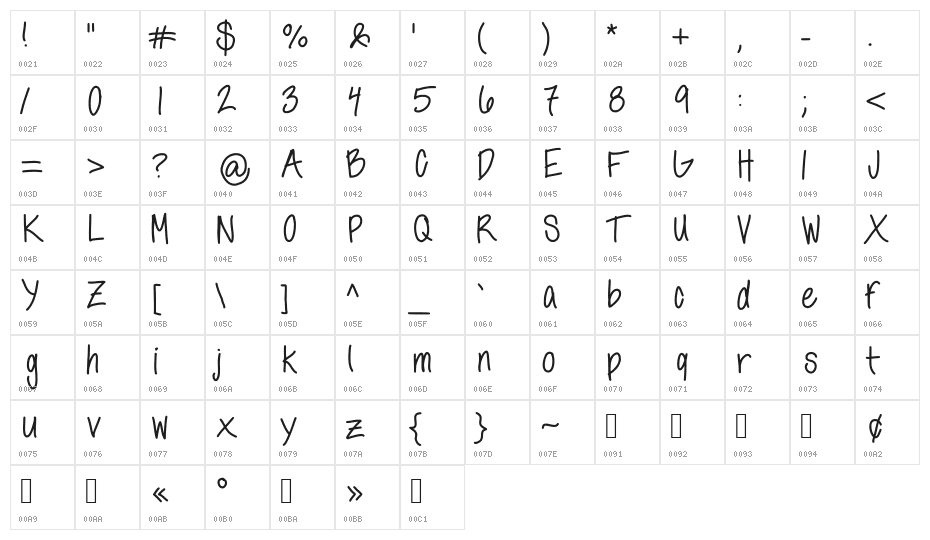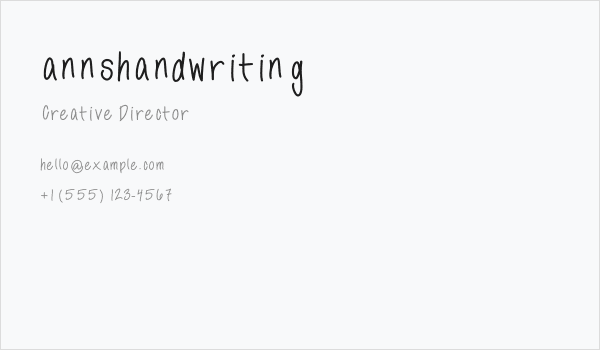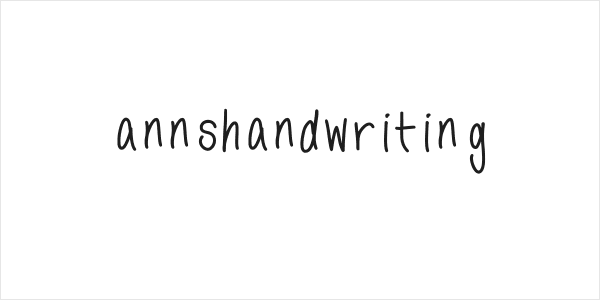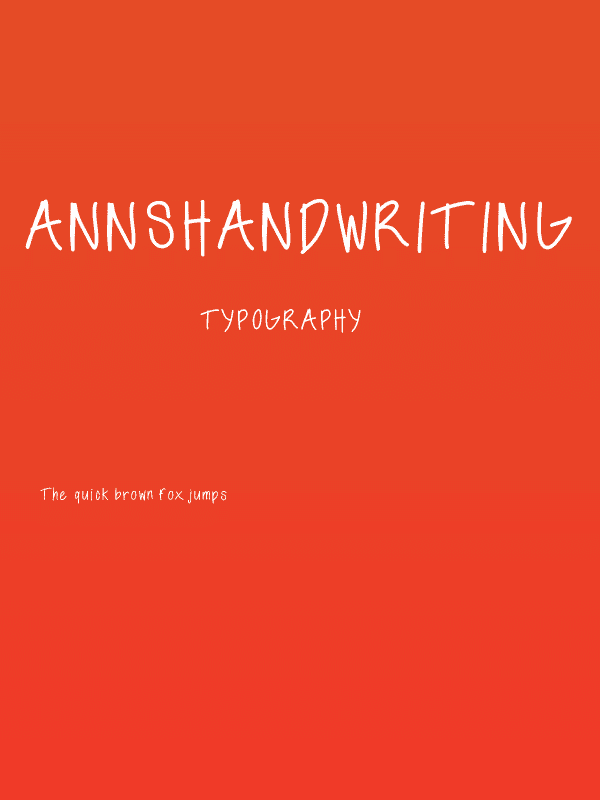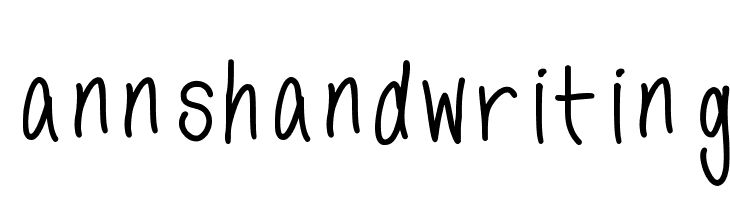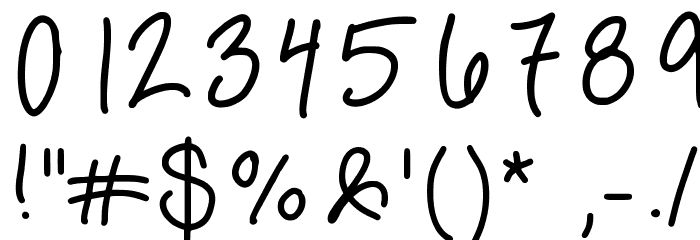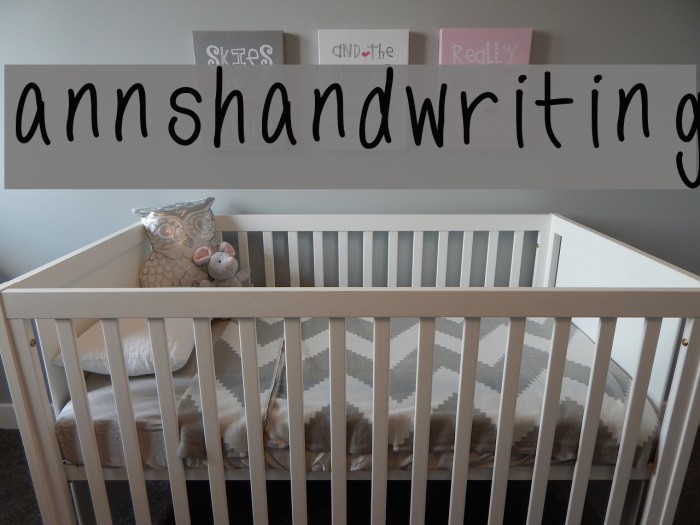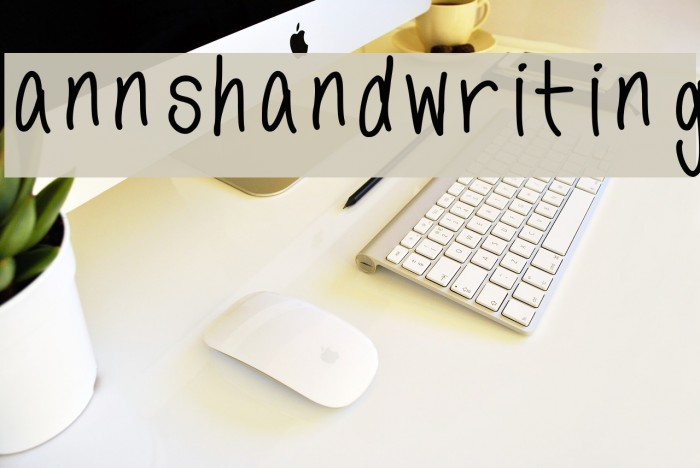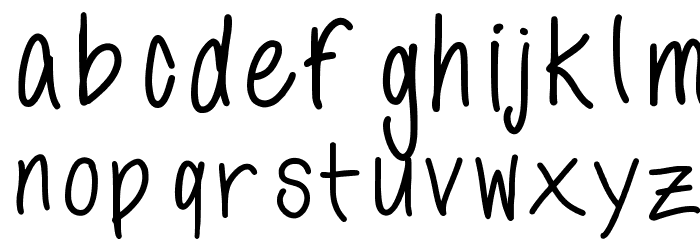
annshandwriting Font
This font exudes a casual and playful handwritten style, characterized by its fluid and slightly irregular strokes that mimic natural handwriting. The letters are slightly slanted, adding to the informal and friendly appearance. The uppercase and lowercase letters maintain a consistent style, with rounded edges and a moderate variation in stroke width, giving it a lively and approachable feel. The numerals and special characters are crafted with the same playful touch, ensuring a cohesive look across all elements. This font is perfect for projects that require a personal and informal touch, such as greeting cards, invitations, or casual branding.
| Use Case | Headlines, Informal text, Personal projects |
| Proposed Projects | Ideal for greeting cards, invitations, personal branding, and casual design projects. |